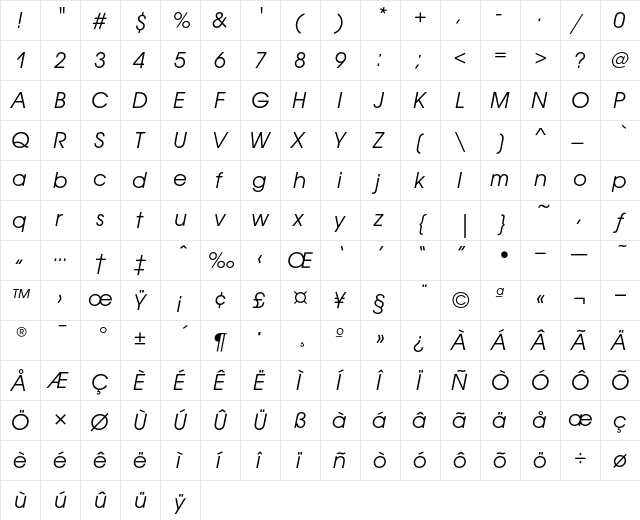
AvantGardeITC BookOblique
Design Context for AvantGardeITC Typeface
AvantGardeITC is a composed and adaptable typeface that performs quietly and consistently across a wide range of design contexts. The dynamic lean of this cut emphasises speed and emphasis in any layout.
Pro Tip: Try AvantGardeITC for annotation and caption copy alongside an upright companion — the contrast in angle creates a dynamic but ordered typographic system.